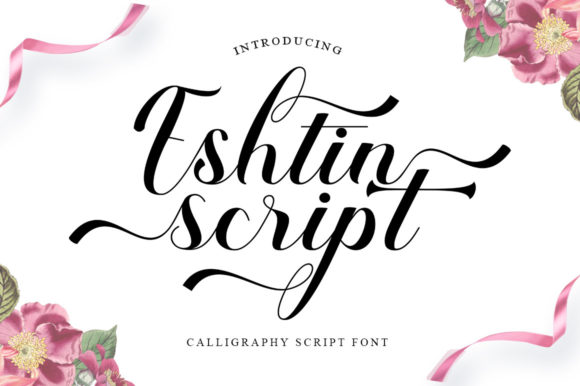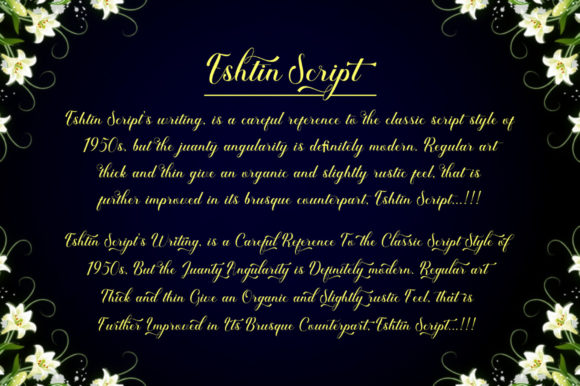
About Eshtin Script Font
Eshtin Script is an elegant script font with a contemporary atmosphere and impeccable form, inspired by timeless classic calligraphy. This font is PUA encoded which means you can access all of the glyphs and swashes with ease!